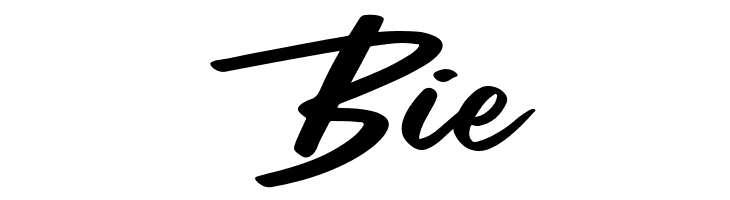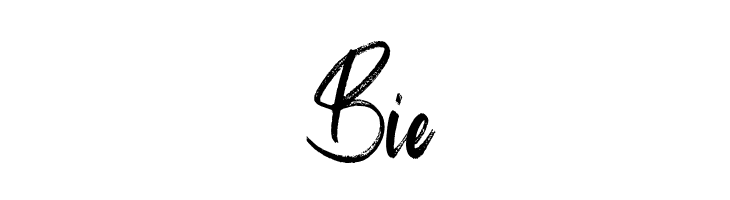
A bold, geometric font with playful and artistic character shapes.
A smooth, flowing script font with interconnected characters and elegant flourishes.
A delicate and elegant script font with flowing, intricate letterforms.
A bold, expressive brush-style font with dynamic strokes and artistic flair.
( Fonts by Muhammad Afif )
A bold, rounded font with a playful and friendly style.
A bold serif font with strong strokes and classic design.
A bold, cursive script font with a dynamic and fluid style.
A lively and expressive handwritten font with fluid, dynamic strokes.
A dynamic, expressive script font with fluid, handwritten strokes.
A bold, brush-style font with dynamic, handwritten strokes.